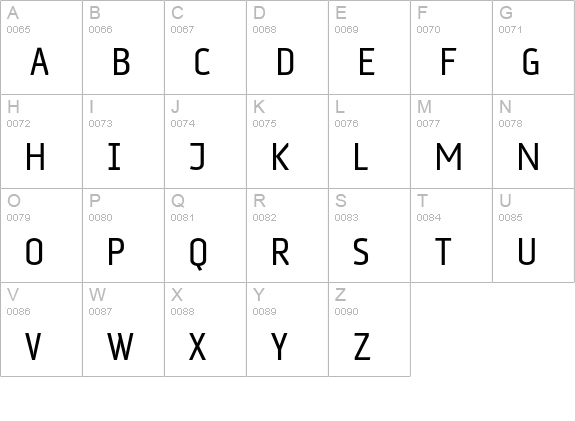
The AFKlampenborg font is a stunning display typeface that exudes elegance and sophistication. With its clean lines and unique curves, this font is perfect for adding a touch of class to any design project. The AFKlampenborg font is versatile and can be used for a variety of purposes, from branding to editorial design. What sets this font apart is not only its aesthetic appeal, but also the fact that it is completely free to download. You can easily access the AFKlampenborg font at FontsMarket.com, where you can add this beautiful typeface to your collection without breaking the bank. Whether you're a designer looking to enhance your projects or a business owner in need of a stylish font for your branding, the AFKlampenborg font is the perfect choice. Download it today and elevate your designs with this exquisite typeface.